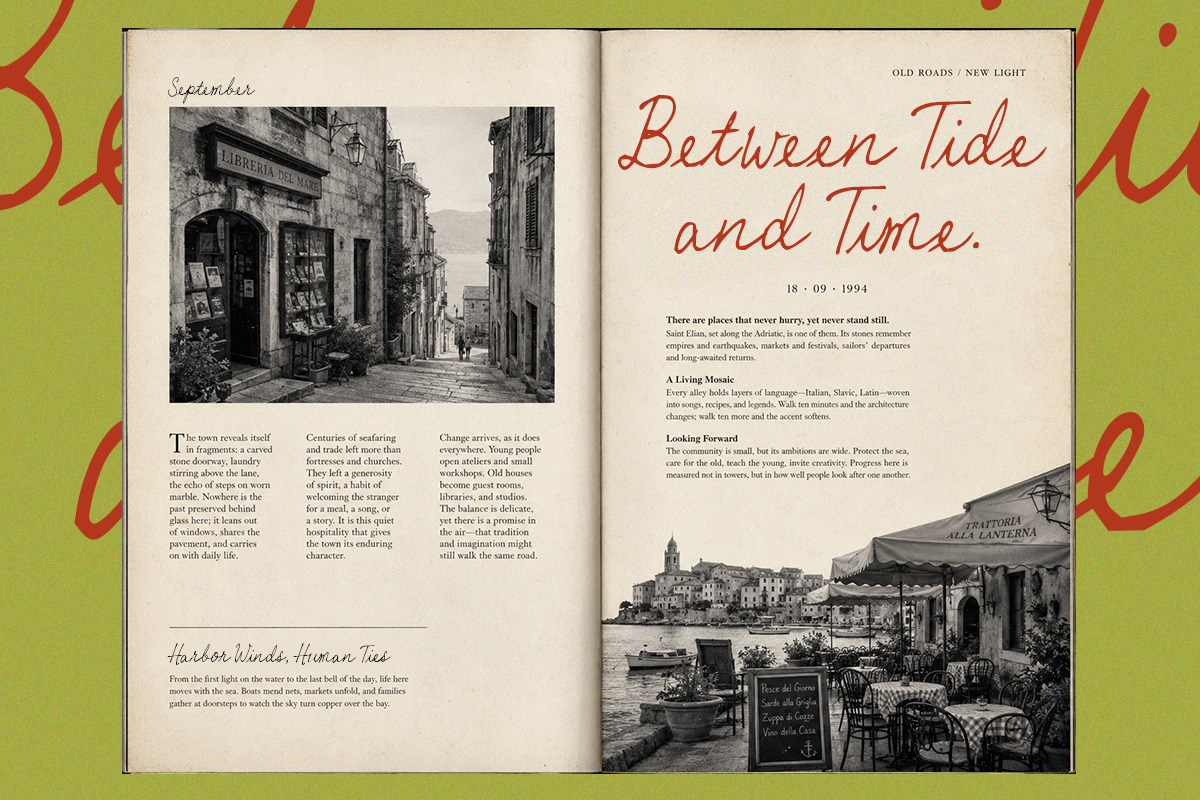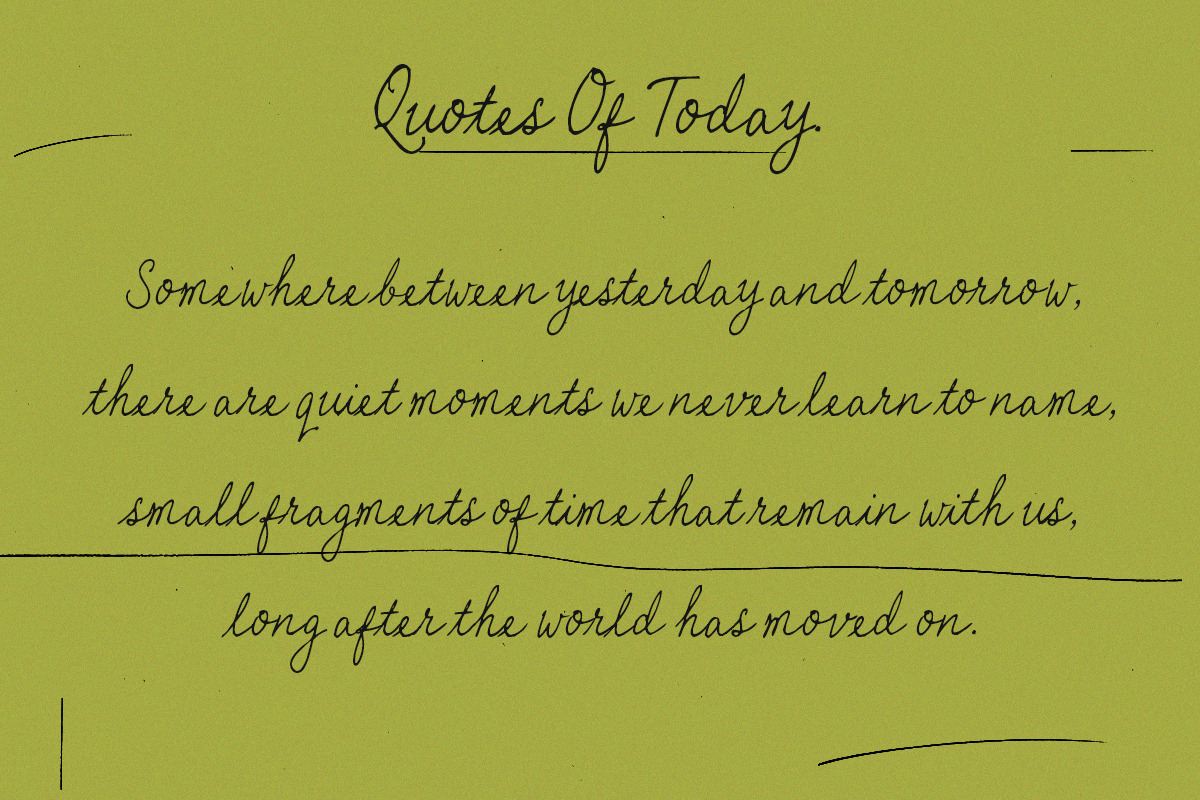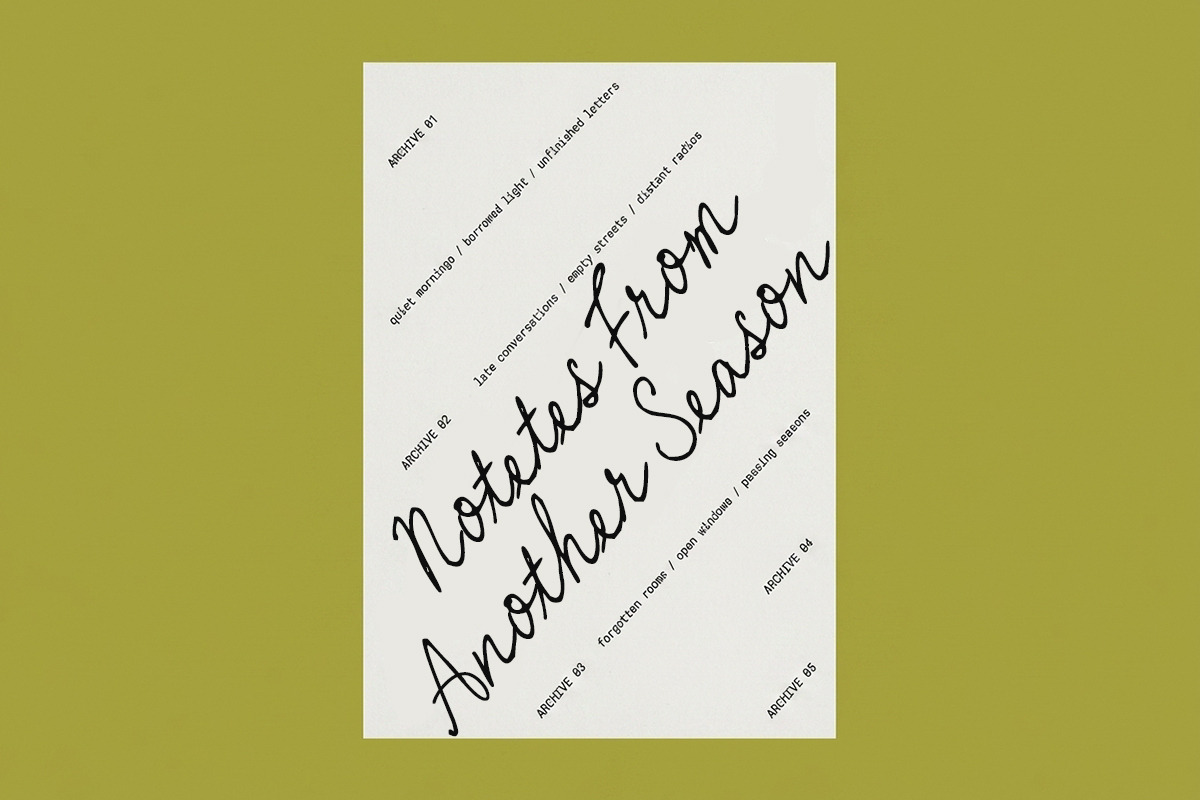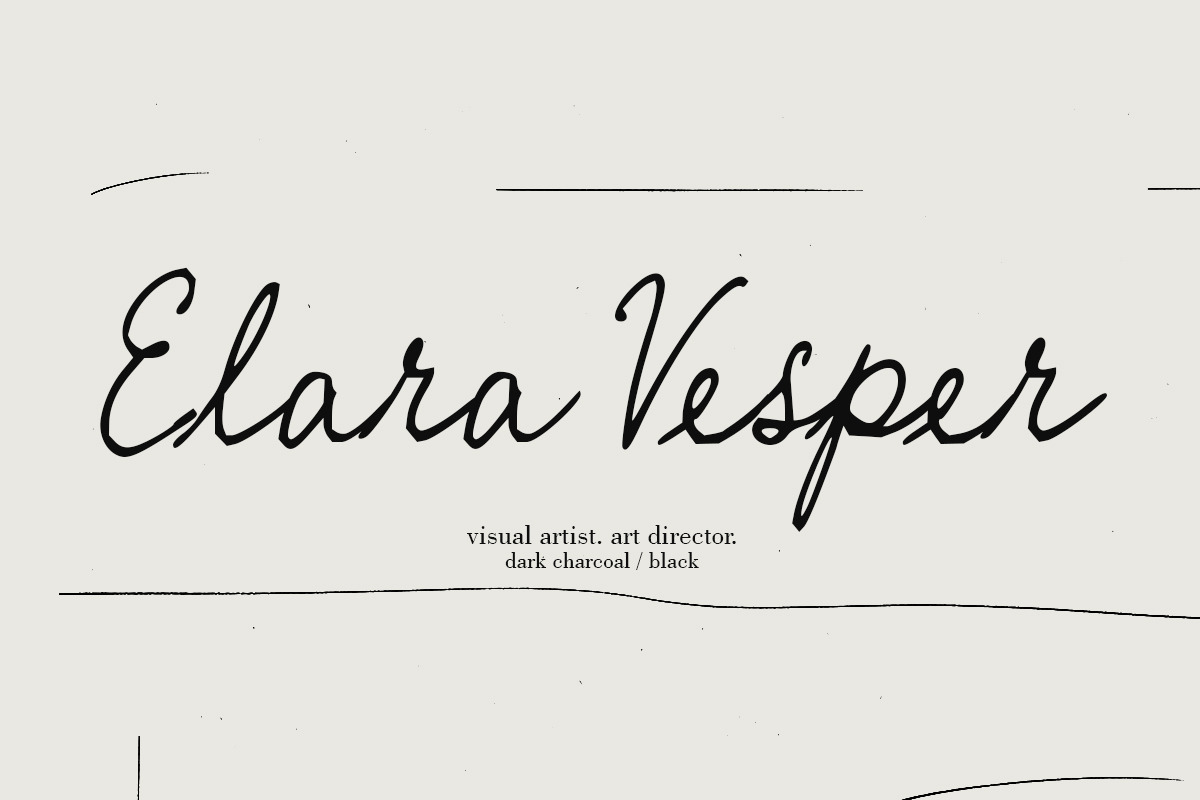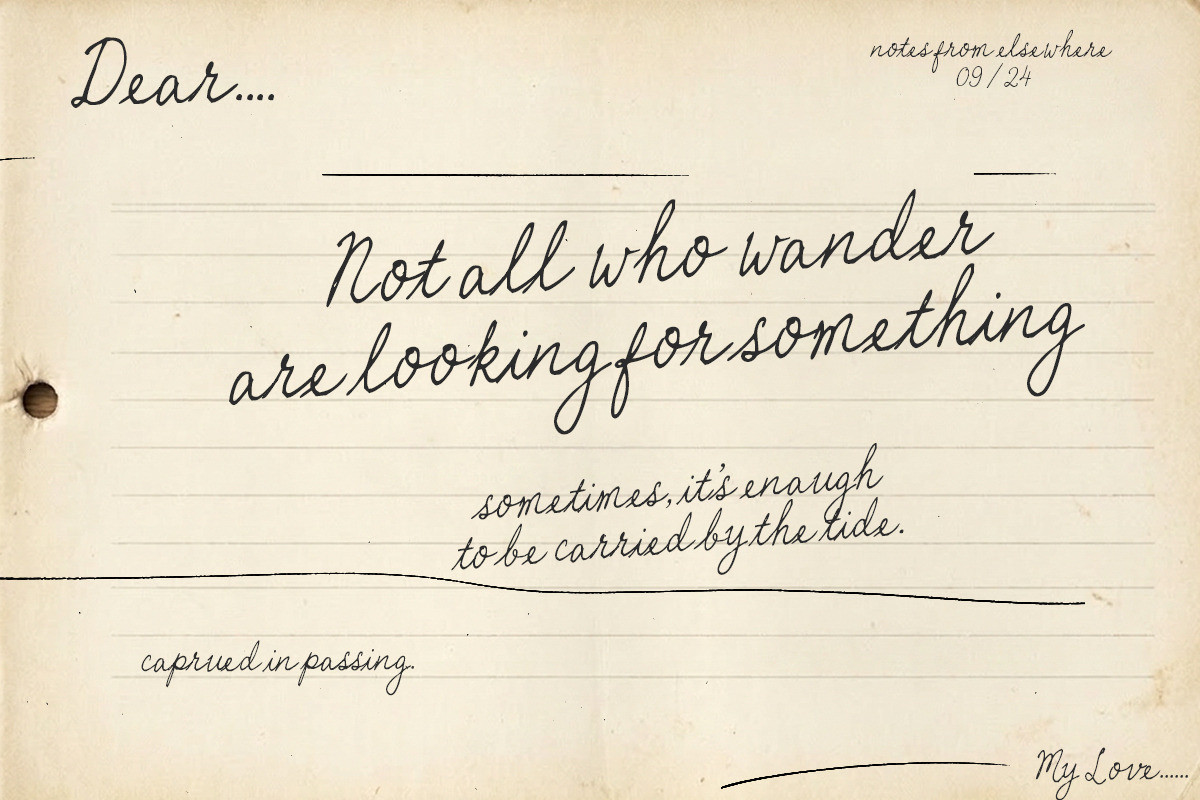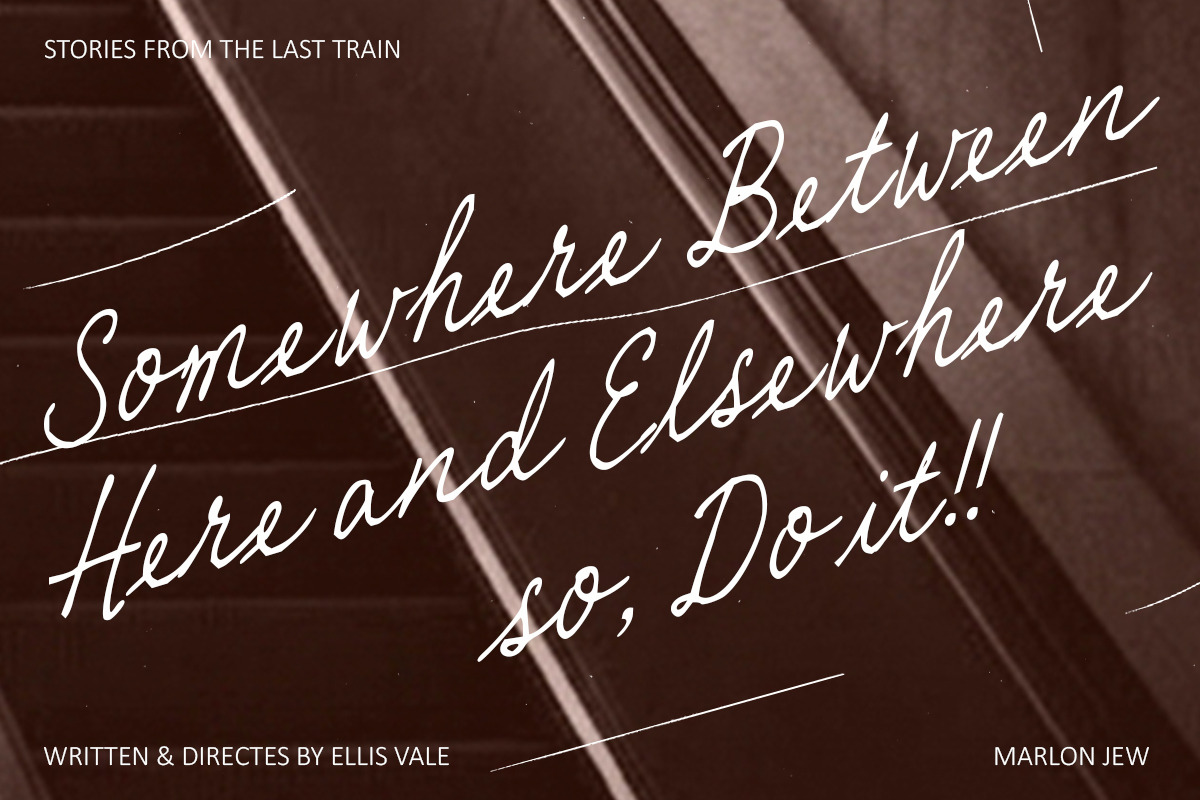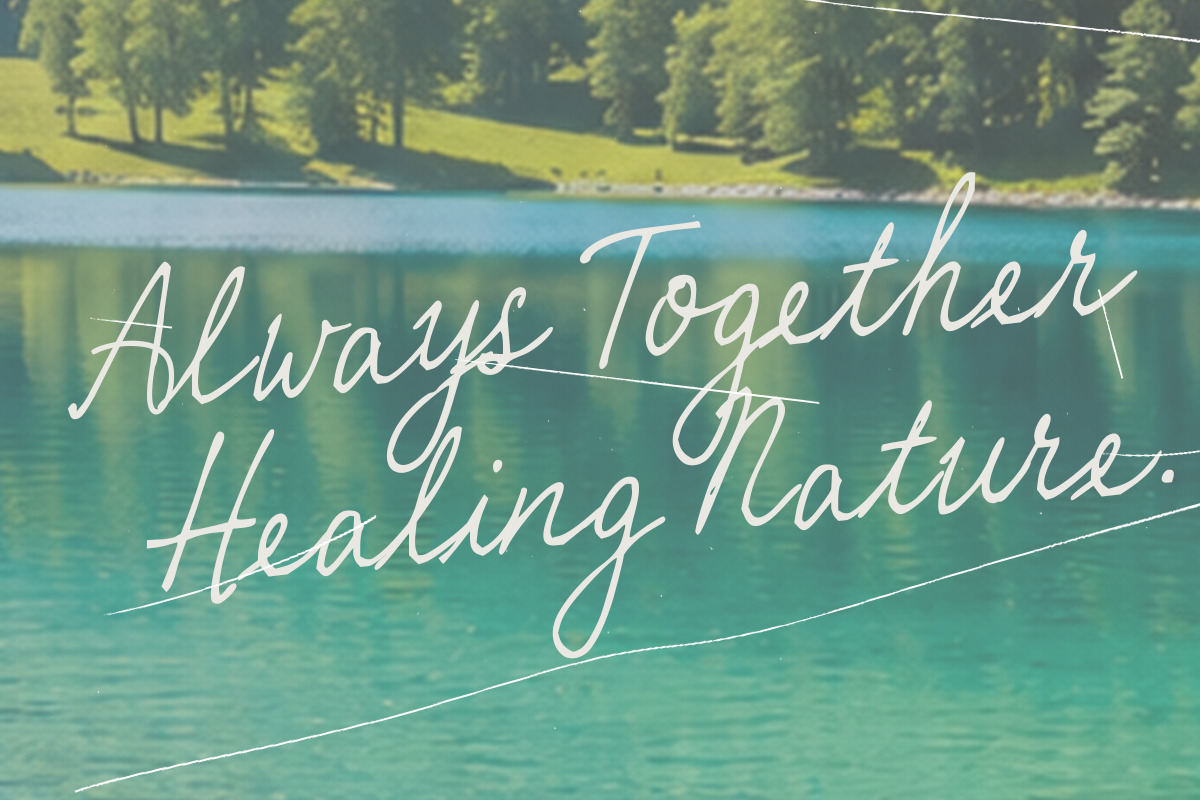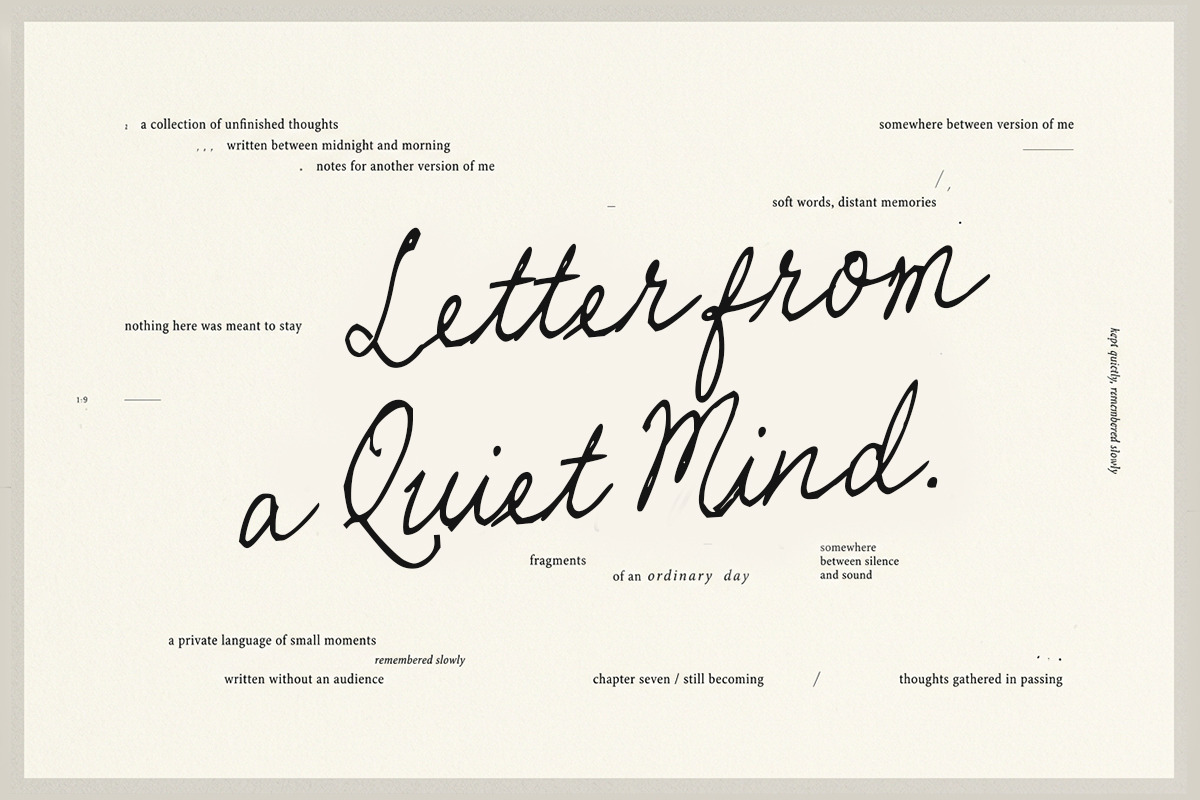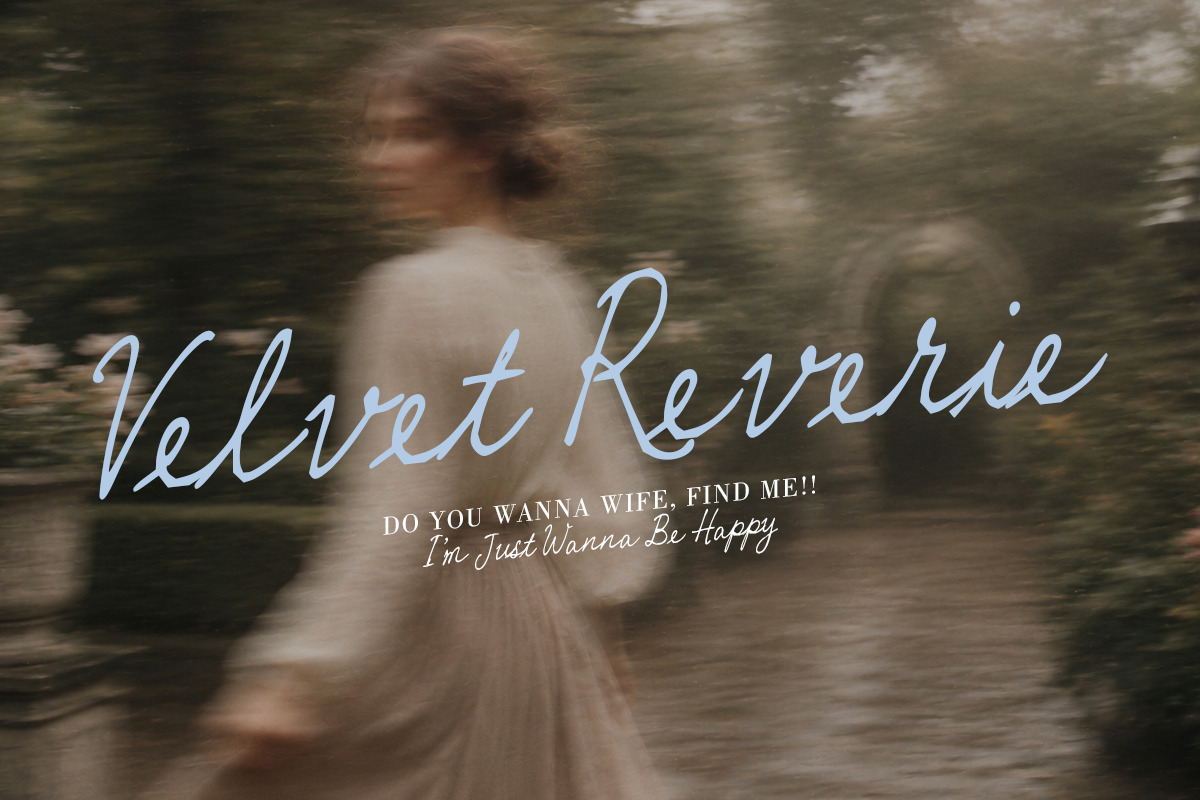
GIordino Struct
GIordino Struct is an expressive handwritten script font that combines bold character with an elegant, spontaneous rhythm. Designed with flowing strokes, dynamic connections, and distinctive letterforms, it brings a natural sense of movement and personality to every word.
With its refined yet slightly rebellious appearance, Giordino Struct works beautifully for fashion branding, editorial designs, logos, packaging, posters, invitations, social media graphics, and other creative projects that need a sophisticated handwritten touch.
The font is crafted to feel authentic and artistic while maintaining strong visual impact. Its expressive curves and confident strokes create a balance between elegance, individuality, and contemporary handwritten style.
GIordino Struct — crafted with character, written with attitude.